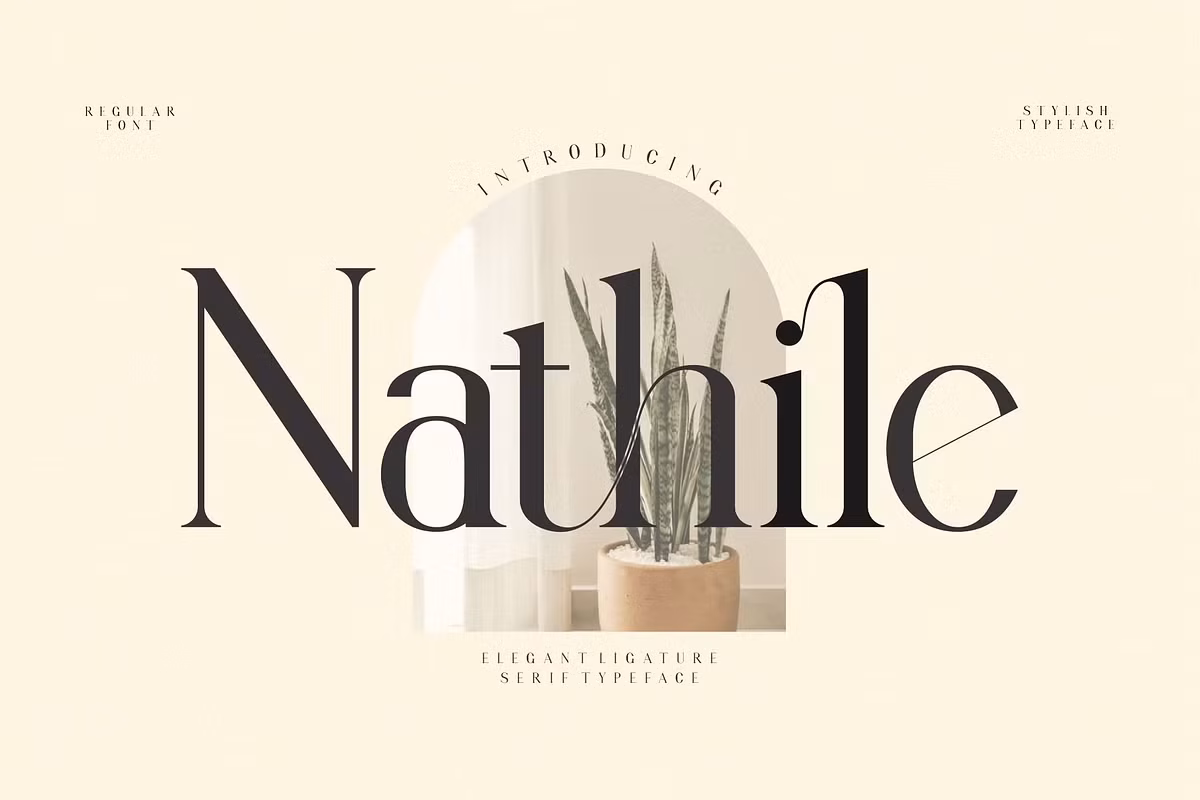
Nathile Ligature Serif Typeface Free Download is a refined and elegant serif font featuring stylish ligatures and high-contrast letterforms. Designed to bring sophistication and luxury to your work, it’s perfect for wedding invitations, fashion branding, editorial layouts, logos, and upscale packaging.
What sets Nathile apart is its beautifully crafted ligatures—adding unique character combinations that elevate typography from simple to stunning. Its modern classic aesthetic makes it versatile across both digital and print projects. You can test it out with a free download, but a commercial license is required for any monetized or client-based work.
Add a graceful, fashion-forward look to your designs with Nathile Ligature Serif Typeface Free Download, and make every headline or logo feel elegant, distinctive, and unforgettable. A must-have for designers who value beauty in every detail.